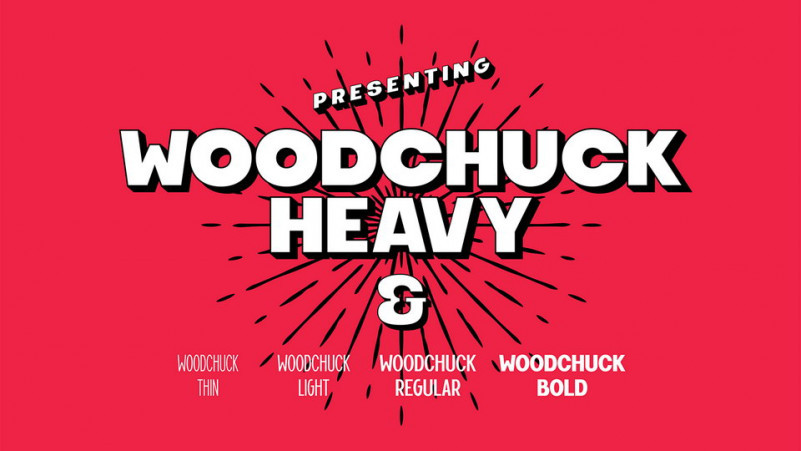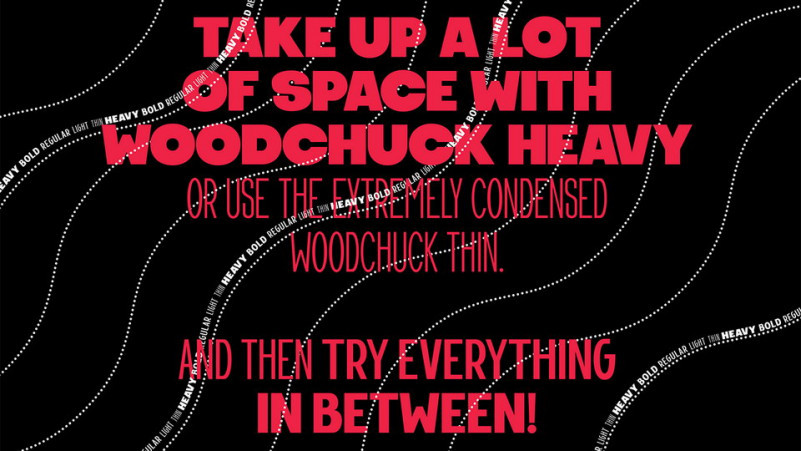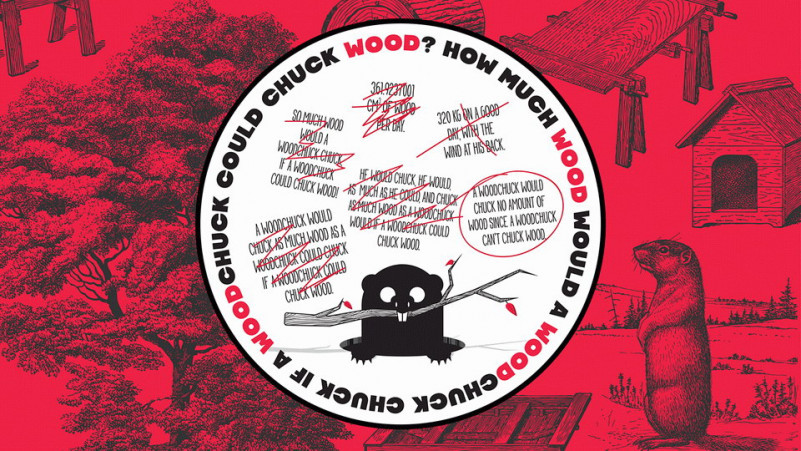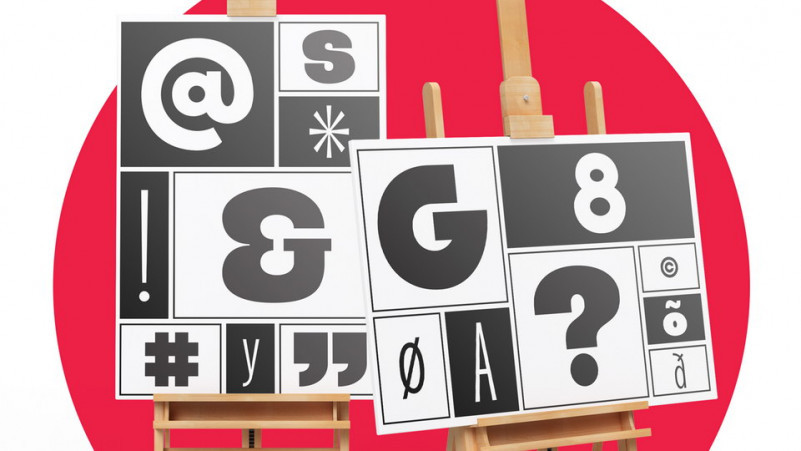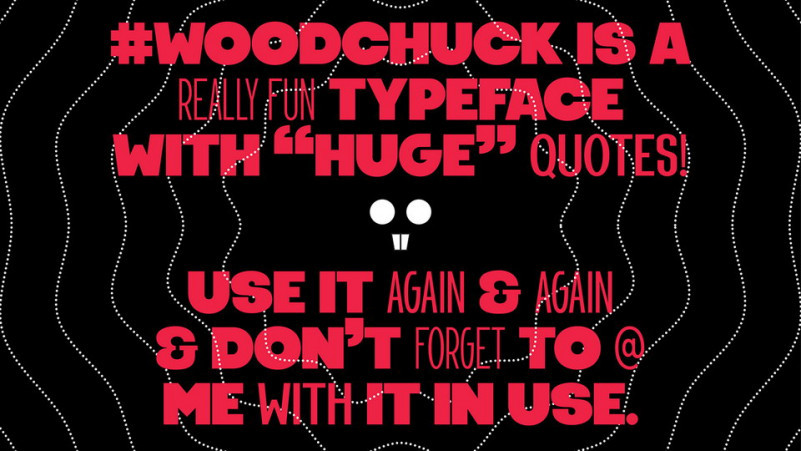
Woodchuck Font Family
Thank you for looking Woodchuck Typeface. This is a modern sans-serif font. It’s just experimental enough to be unique but classic enough to versatile from body copy to word-marks. Great for mastheads, pull quotes and fashion editorials. With a range of OpenType features and it’s works perfect for any graphic design challenge — webdesign, packaging, logo design, etc.